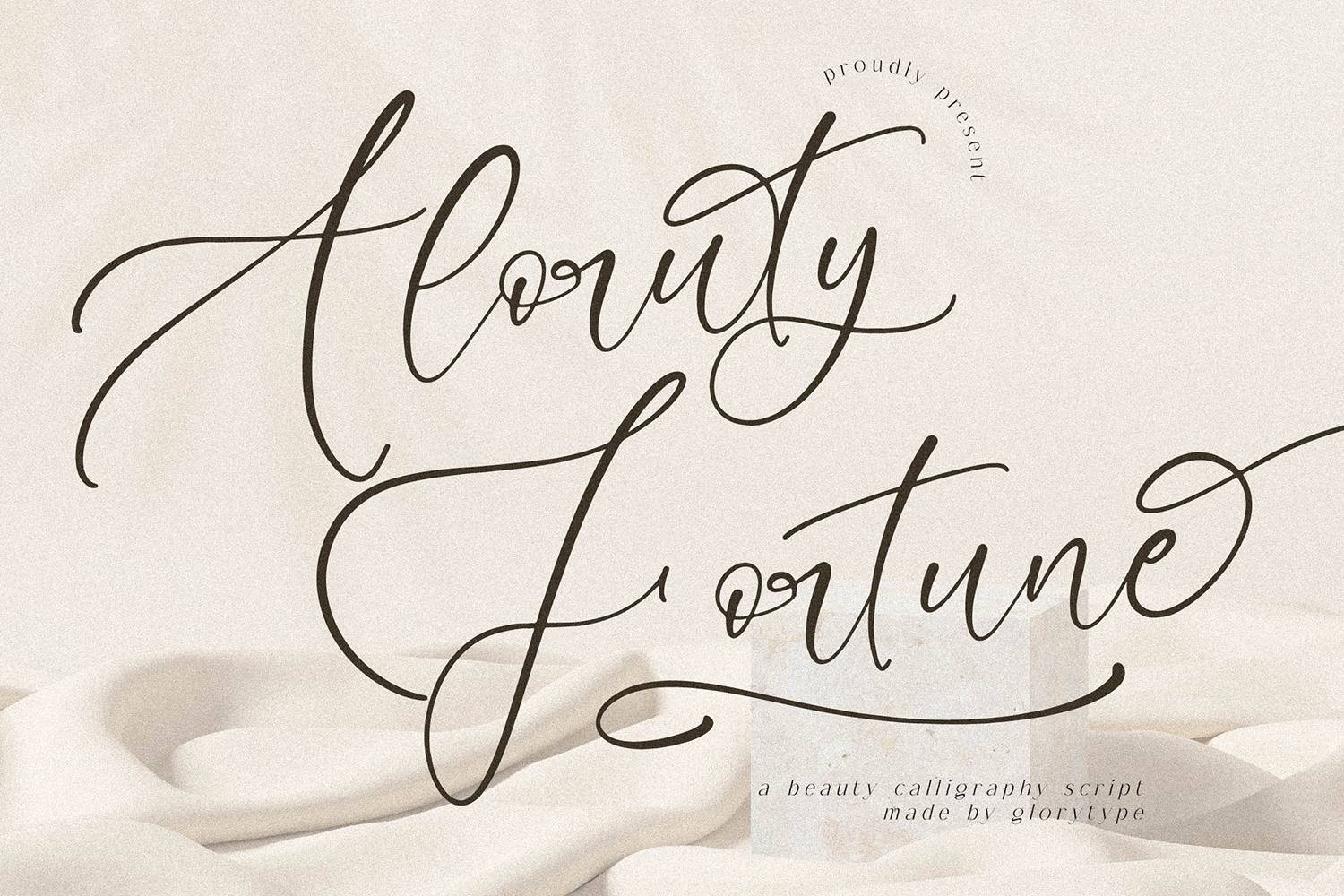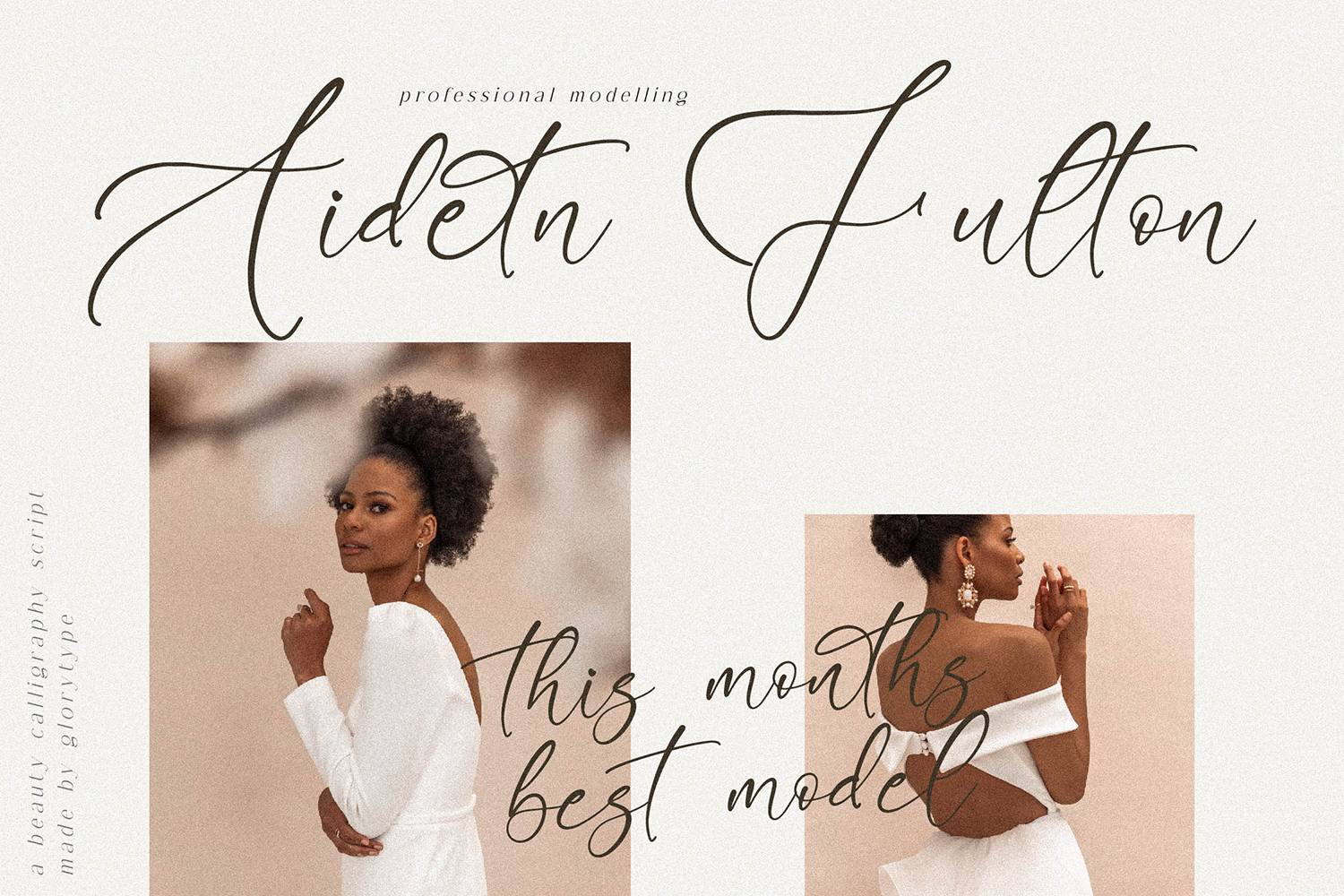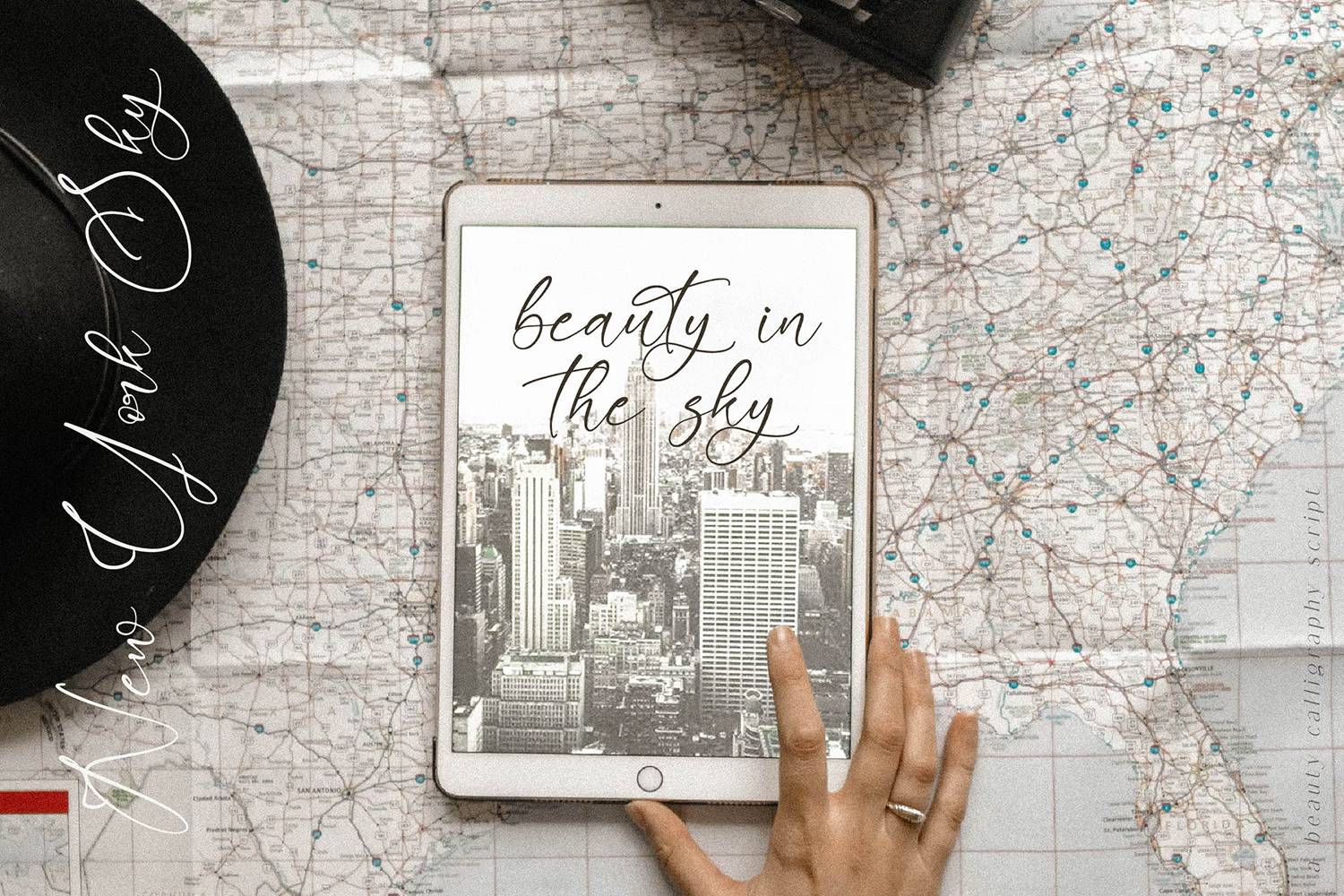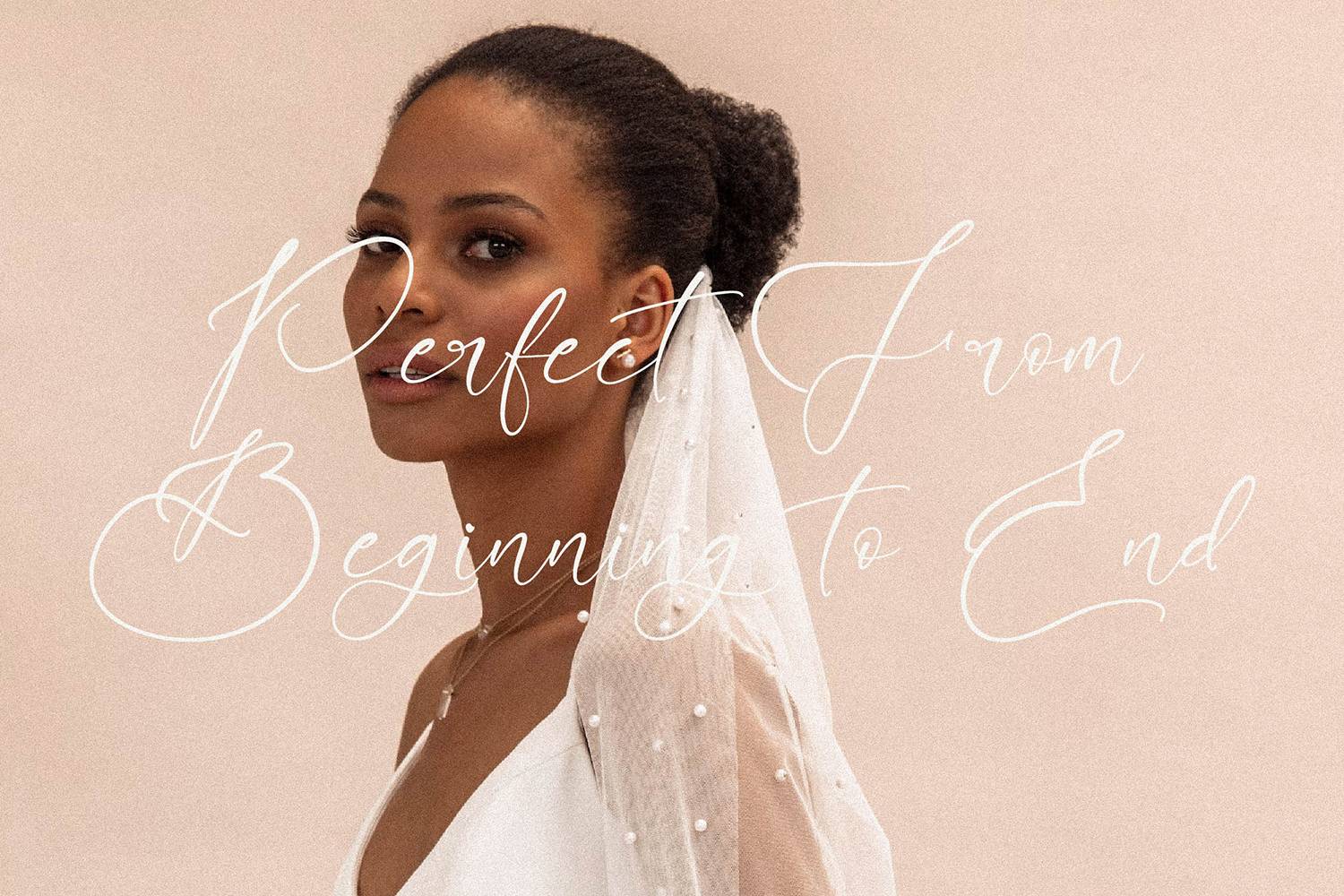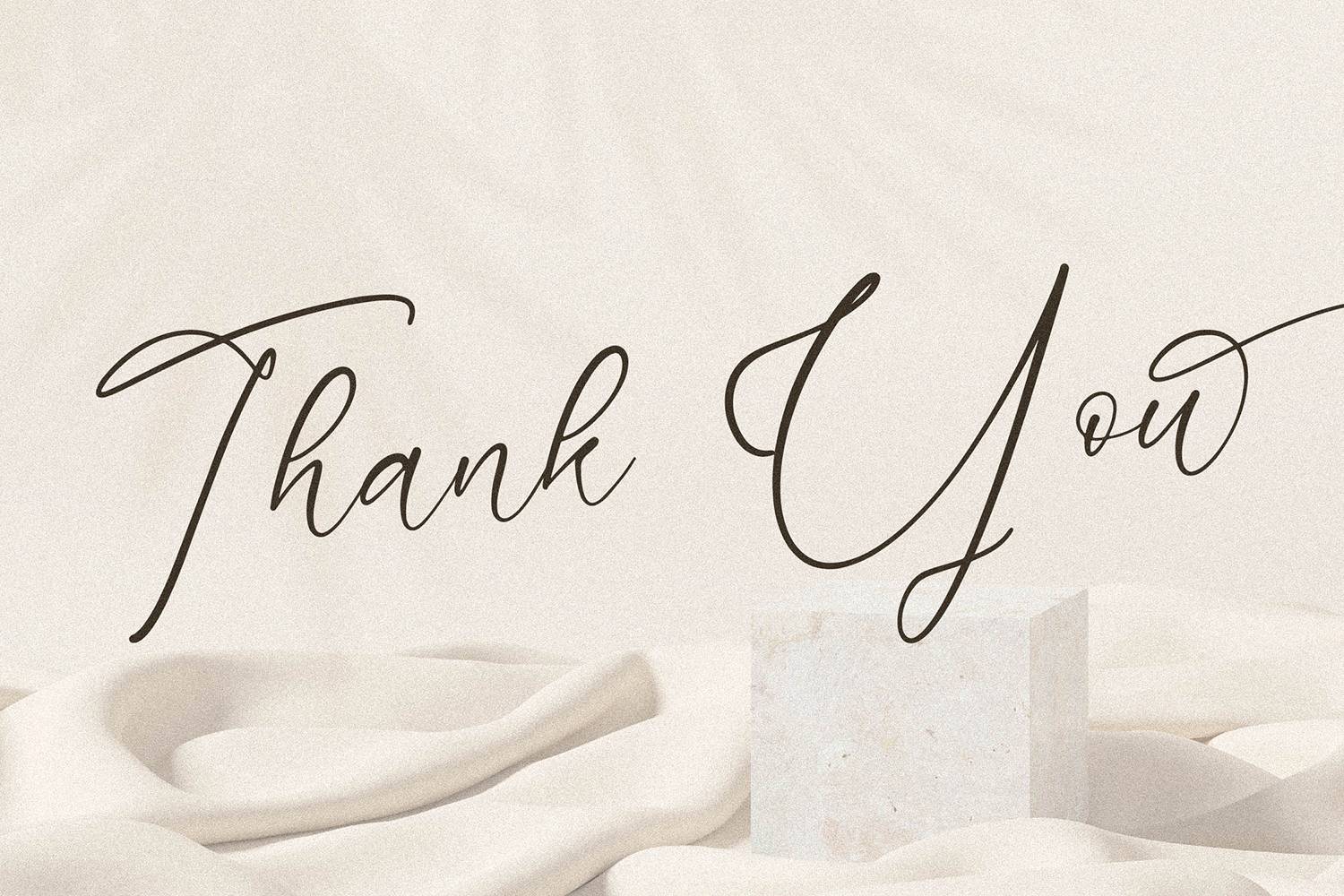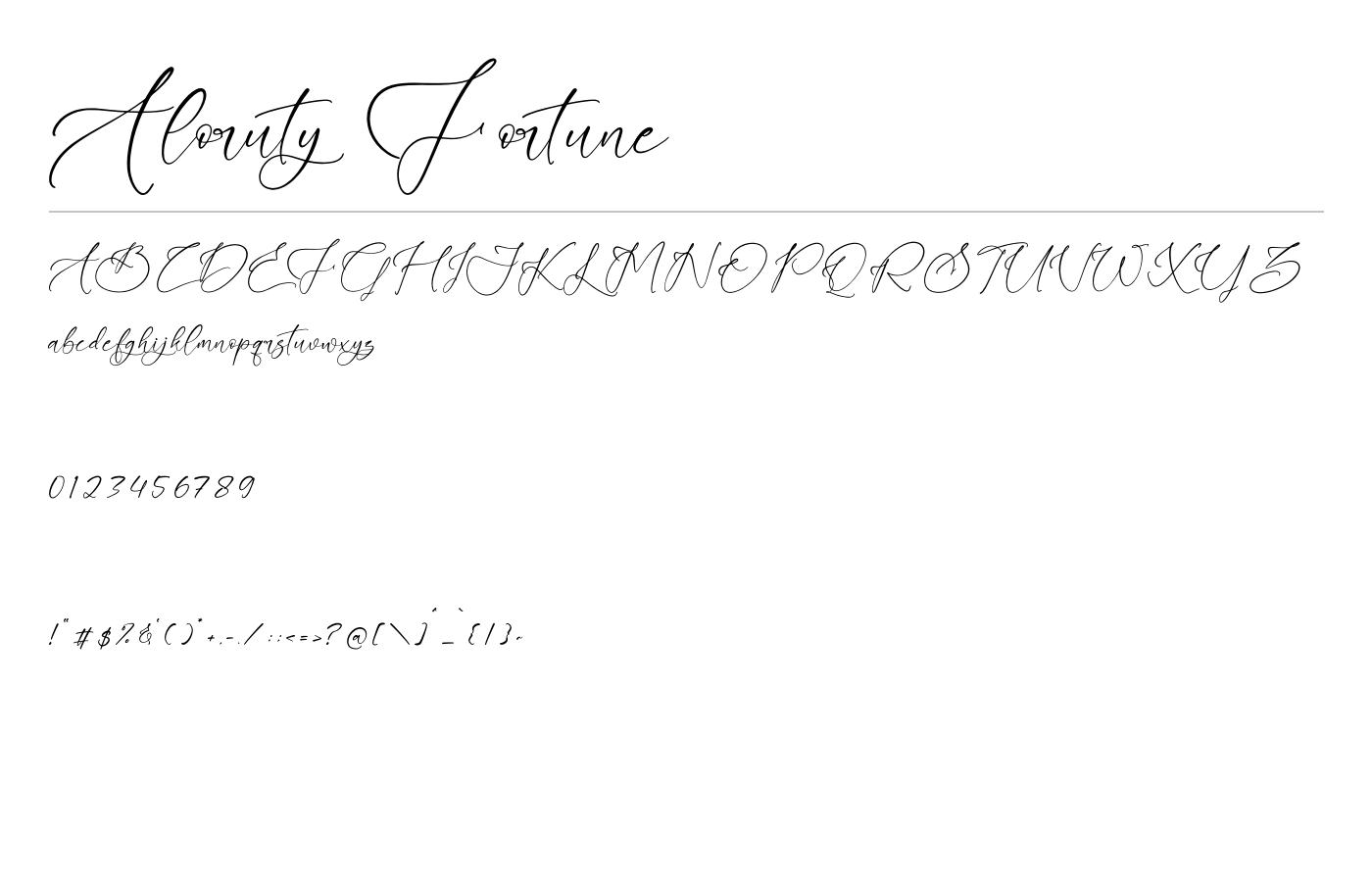
Aloruty Fortune is a delicate, elegant script font characterized by its thin, flowing strokes and graceful, looping letterforms. This light, handwritten style exudes a refined and sophisticated charm, making it perfect for wedding invitations, luxury branding, and artistic projects that require a personal and stylish touch. Its airy spacing and unique curls give it a romantic, high-end feel that works beautifully in upscale and feminine design contexts.
Aloruty Fortune Font
About Aloruty Fortune Font